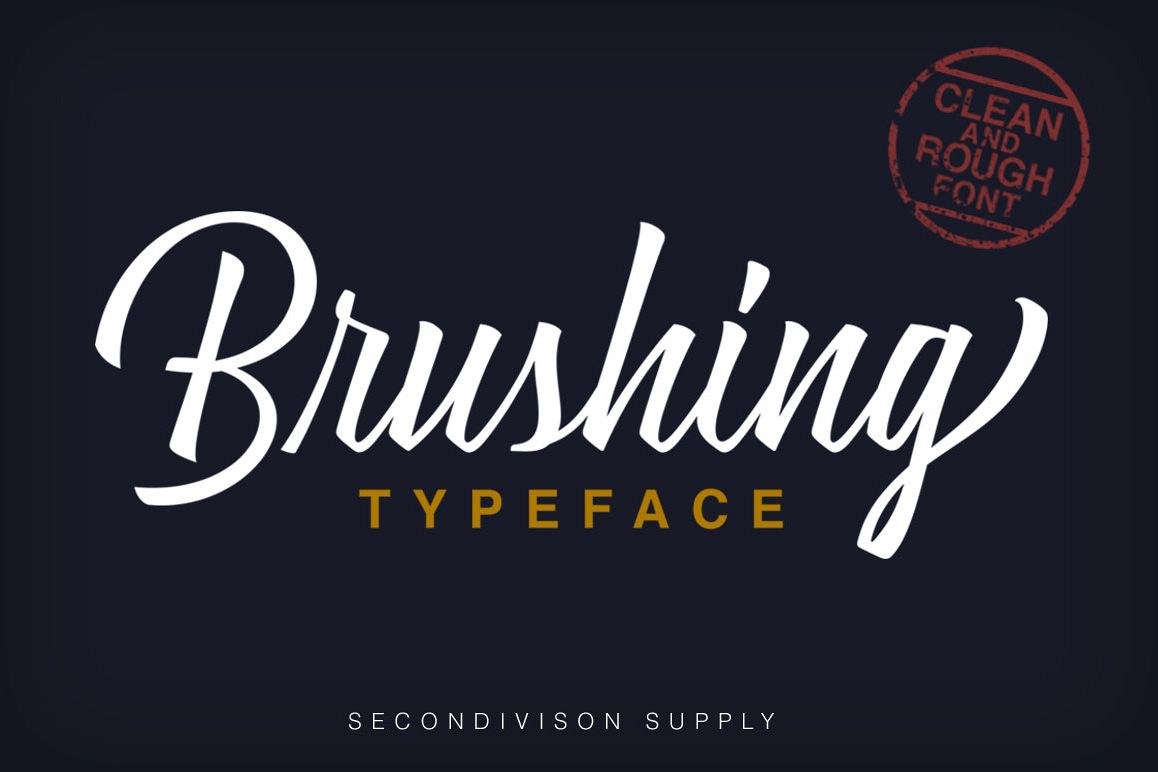
Brushing
Brushing Rough
Brushing Typeface are clean and rough style font,
inspired by brush lettering. You can use Brushing for your logo design,
poster design, T-Shirt design, branding, badge, name card, etc. This
font have many alternates characters, so you can combine Brushing
regular characters with Brushing alternates character for your design.
• Character A - Z
• Numeric & Punctuation
• Alternates Character